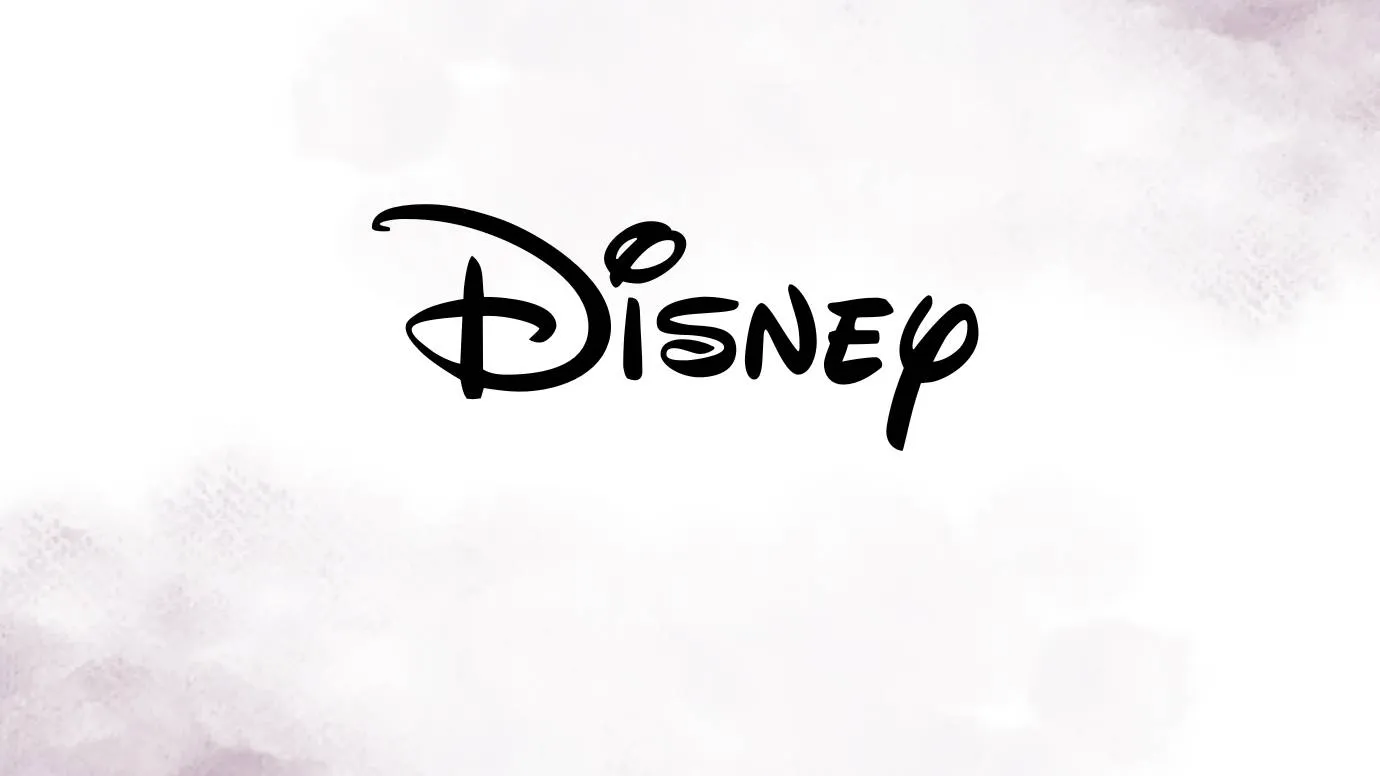
Disney Font Family is script font that is used by Walt Disney company on their Logo. It has bold letters and a character set that became a reason for its instant popularity. Waltograph typeface is the actual font applied to the logo of Disney company.
It comprises numerous variants. Furthermore, it is stated that this font is being styled from the autograph of Walt Disney. You can download Disney font free in your system in many versions.
Disney Font Family
NameDisney Font
TypeBrush
DesignerJustin Callaghan